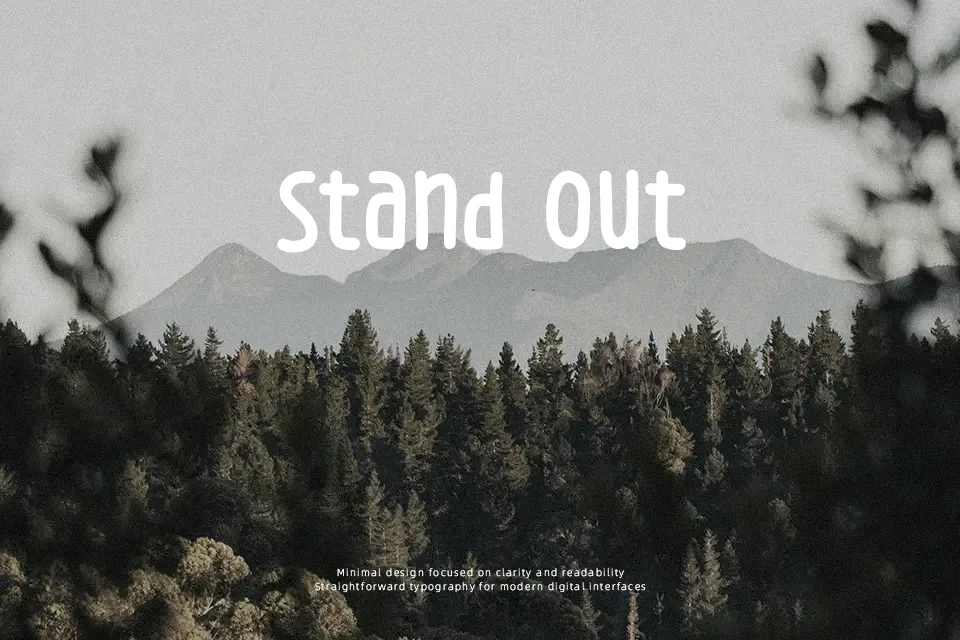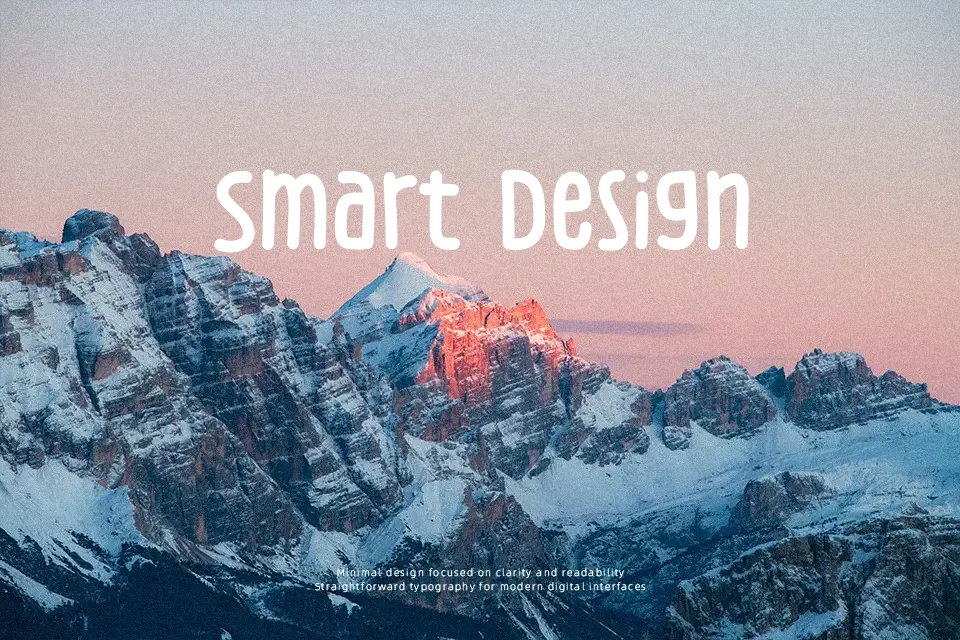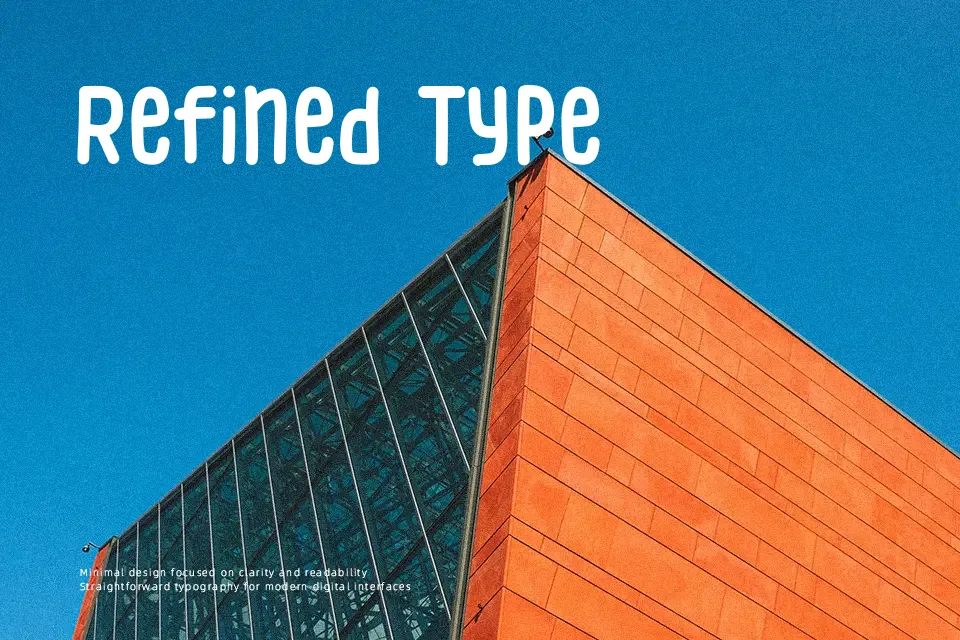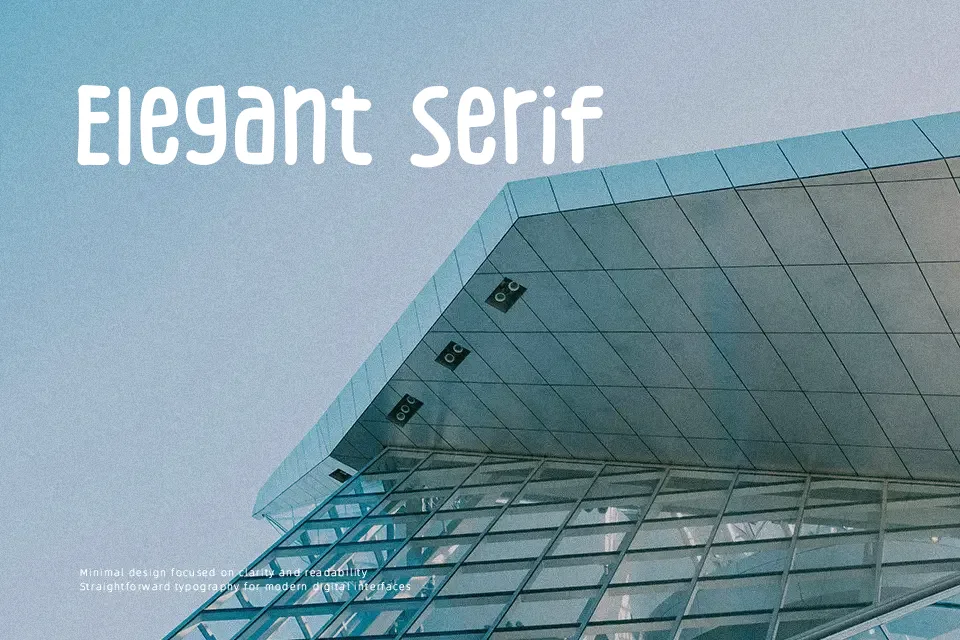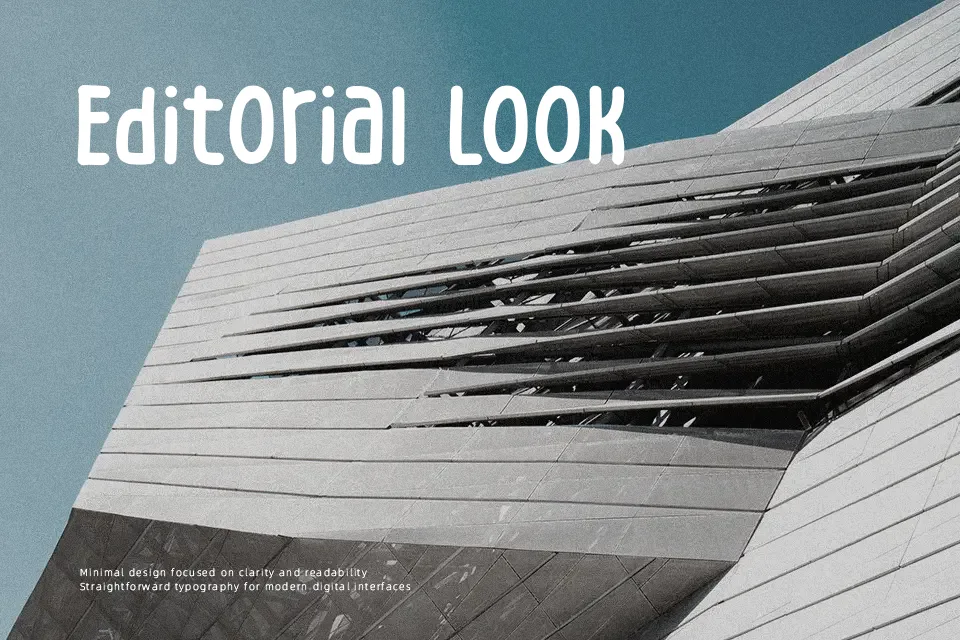
Spicy Wasabi Font
Designed by Khurasan
Spicy Wasabi Font is a lively display typeface built with heavy stroke weight, soft rounded terminals, and minimal stroke contrast across all glyphs. Its characters feature compact proportions and open internal counters, paired with tight letter spacing that produces an engaging, cohesive rhythm in short titles. The design communicates an approachable, informal tone that excels in casual food packaging, cartoon illustrations, and youth-oriented event banners. While the typeface maintains strong readability in large headings, the dense letterforms quickly lose definition in smaller body text or formal editorial layouts where neutral clarity is needed.
Best For: snack packaging,children book covers,restaurant menu headers,cartoon poster titles
Not Ideal For: continuous body text,technical documentation,dense editorial paragraphs,small interface labels
Perfect for headline, kids, and packaging, with a bold and comic style.